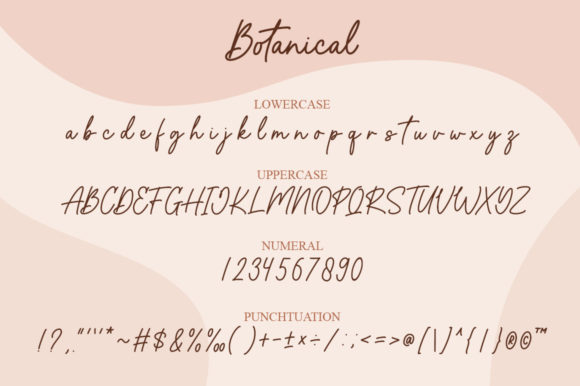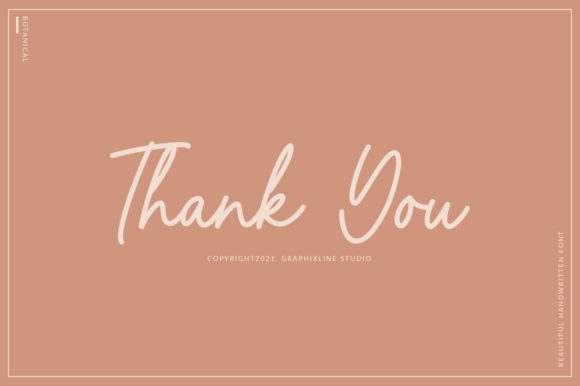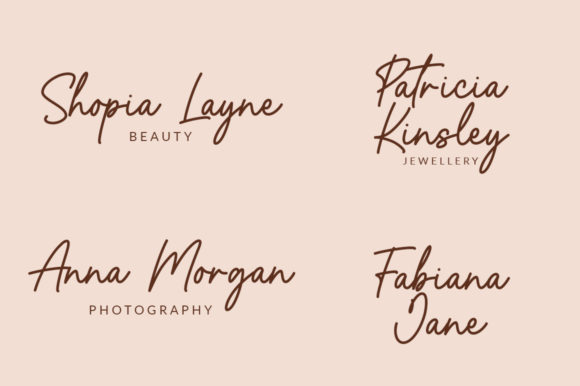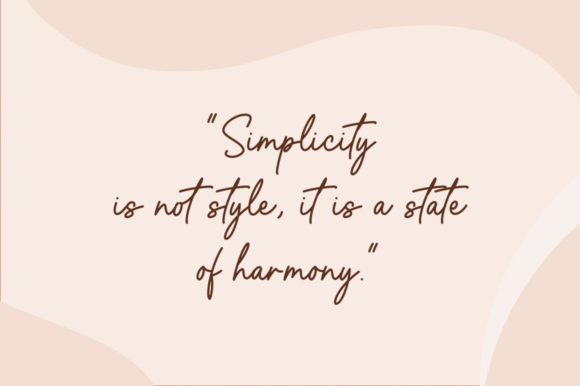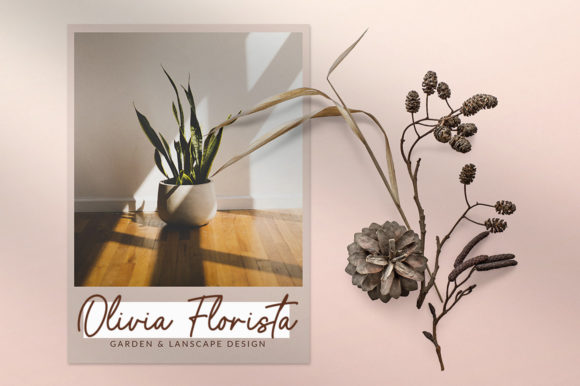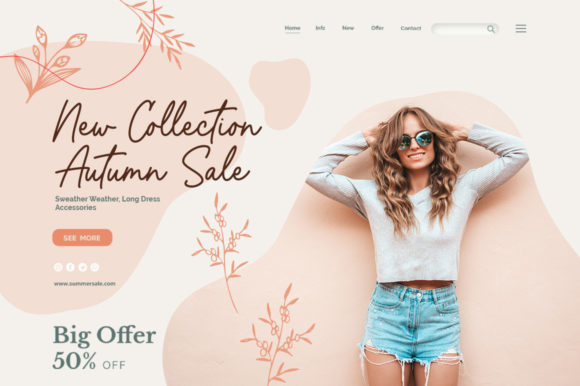
Botanical Font
About Botanical Font
Botanical is a beautiful and refined script font. It has a classy, elegant and modern look that can be used for logos, branding, invitations, stationery, wedding designs, social media posts, and much more!